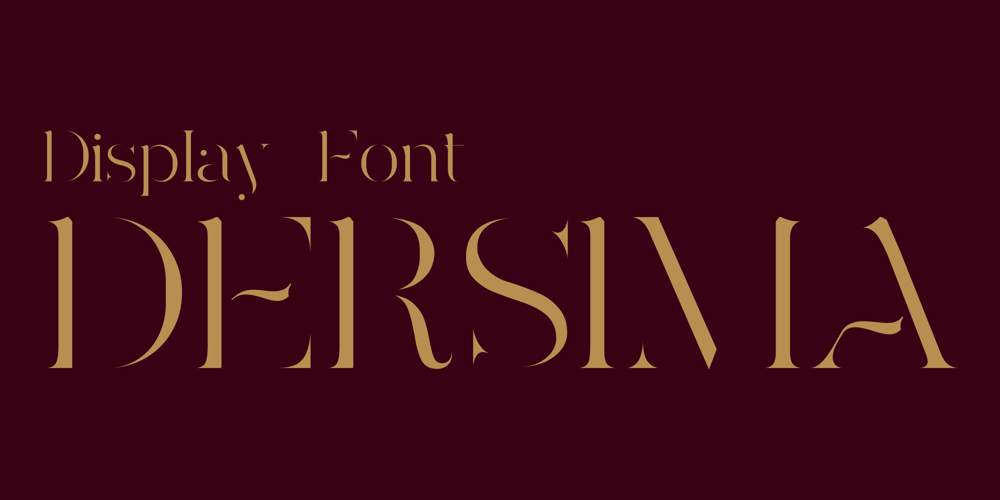
Dersima Font Family was designed by Cankat Saribas and published by Cankat Saribas. Dersima contains 1 styles and family package options. Dersima is a captivating stencil display typeface that seamlessly marries the elegance of Arabic calligraphy with a contemporary flair. Inspired by the graceful curves and intricate strokes of traditional Arabic script, Dersima embodies a sense of timeless beauty and cultural richness. However, it is not confined to the past; rather, it boldly introduces a modern twist that infuses the design with a fresh and dynamic energy.With its carefully crafted letterforms and meticulous attention to detail, Dersima exudes a sense of sophistication and refinement. Each stroke is imbued with purpose, creating a harmonious balance between tradition and innovation. The deliberate use of stenciling techniques adds a sense of intrigue and visual interest, allowing the typeface to command attention in any context.Dersima is more than just a typeface; it is a celebration of cultural heritage and artistic expression. Whether used in branding, editorial design, or signage, it lends a touch of elegance and authenticity to any project. With Dersima, the beauty of Arabic calligraphy finds new life in the modern world, bridging the gap between past and present with grace and style.